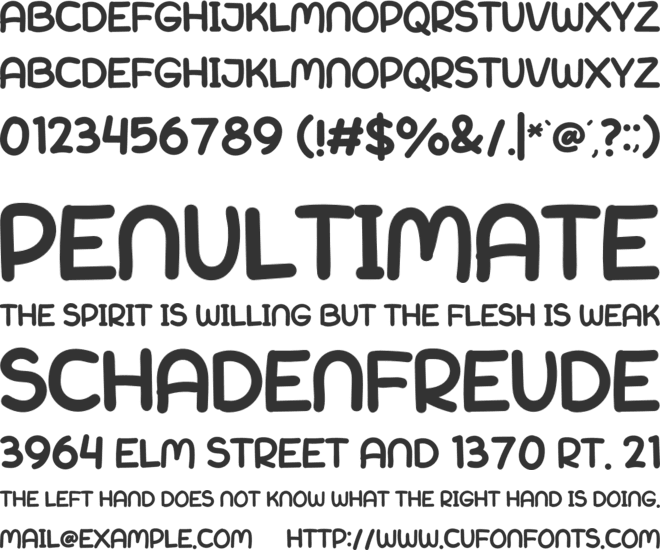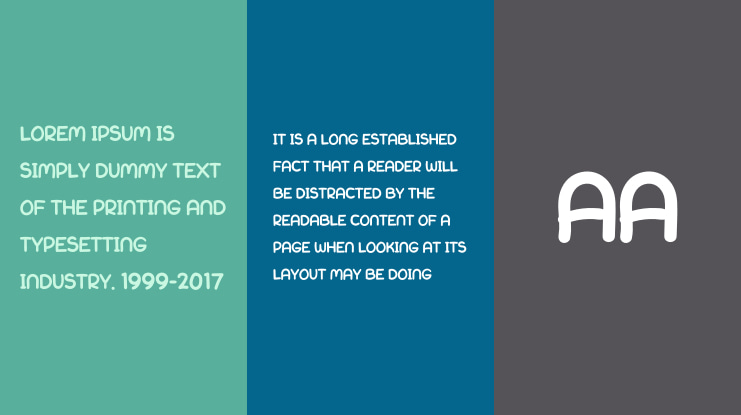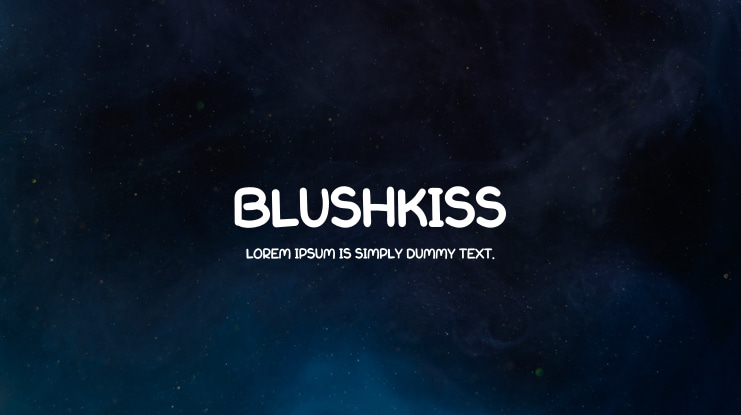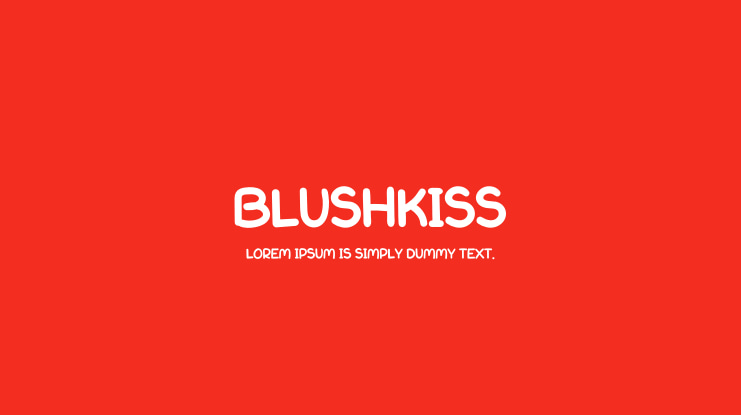
Blushkiss Font Family
Blush Kiss Font Duo – Romantic and Playful Typography
Blush Kiss is a lovely font duo that combines a bold, playful sans-serif with an elegant, handwritten script adorned with charming heart swashes. Perfect for creating eye-catching designs with a romantic touch, this duo works beautifully for wedding invitations, branding, social media posts, and Valentine’s Day projects. The script font features flowing curves and delightful details, while the sans-serif font provides a clean, modern contrast.